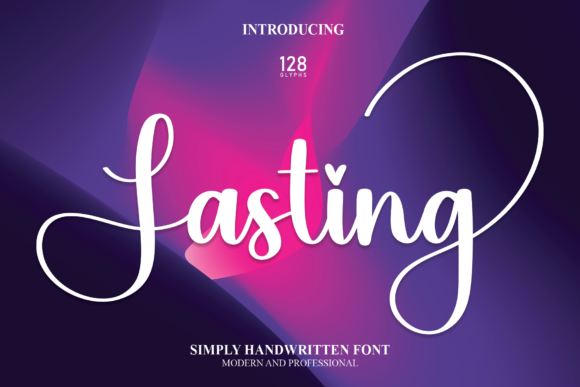
Step into a world of exquisite elegance with Lasting Font, a mesmerizing script font crafted to leave an enduring impression. Its delicate strokes and graceful curves effortlessly evoke a sense of timeless beauty, adding a touch of sophistication to any creative project. Whether you're a seasoned designer or just starting your creative journey, Lasting Font is the perfect companion to elevate your designs and make them shine.
With its impeccable versatility, Lasting Font seamlessly adapts to a myriad of design scenarios. Create stunning logos that exude professionalism and charm, or craft captivating T-shirts that speak volumes about your unique style. Unleash your creativity and explore the boundless possibilities of branding with Lasting Font, turning your vision into tangible masterpieces.
Immerse yourself in the enchanting world of Lasting Font, where every letter dances across the page with a life of its own. Its delicate flourishes and intricate details create a visual symphony that captivates the eyes and leaves a lasting impact. Experience the sheer joy of designing with a font that not only enhances your words but also transforms them into works of art.
Whether you're a seasoned calligrapher seeking to add a touch of elegance to your invitations or a budding artist seeking to create captivating posters, Lasting Font is your muse. Its graceful lines and elegant curves effortlessly convey messages of love, joy, and inspiration, leaving an indelible mark on the hearts of your audience.
So, embark on a creative adventure with Lasting Font, a font that transcends the boundaries of ordinary and propels your designs to new heights. Discover the beauty of timeless elegance, the allure of versatility, and the transformative power of art. Make Lasting Font your font of choice and let your creativity flourish like never before.